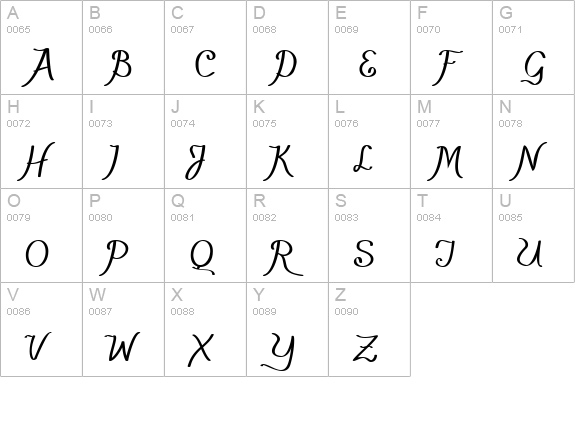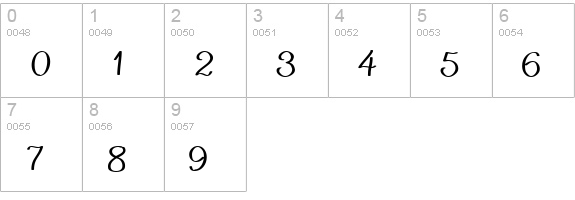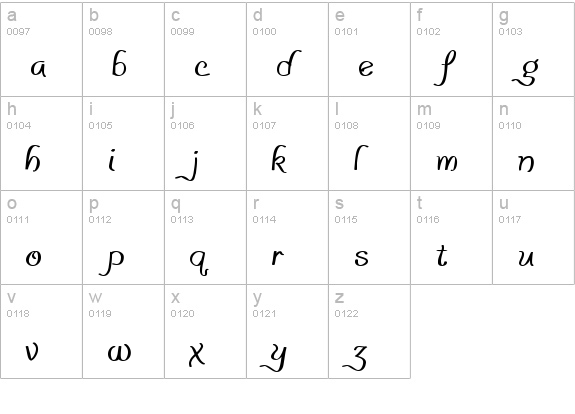
PensleCaligraf Bold is a strong, high-contrast variant in the PensleCaligraf typeface family \xE2\x80\x94 well suited to headlines, attention-grabbing titles, and strong calls-to-action.
PensleCaligraf Bold is a stunning and elegant font that is perfect for adding a touch of sophistication to any project. With its beautiful and intricate letterforms, this font is ideal for creating eye-catching headlines, invitations, logos, and more. The bold weight of PensleCaligraf gives it a strong and commanding presence, making it the perfect choice for projects that require a bold statement. Whether you're designing a poster for a concert, a menu for a high-end restaurant, or a wedding invitation, PensleCaligraf Bold will bring a sense of elegance and style to your design. What's even better is that PensleCaligraf Bold is available for free download at FontsMarket.com. You can easily access this exquisite font and start using it in your projects right away. Its availability as a free download means that you don't have to worry about breaking the bank to add a touch of class to your designs. So why wait? Download PensleCaligraf Bold today and elevate your design projects to new heights. With its timeless beauty and freely available nature, this font is sure to become a staple in your font library.